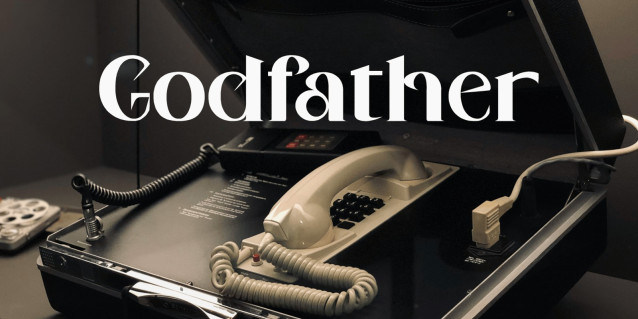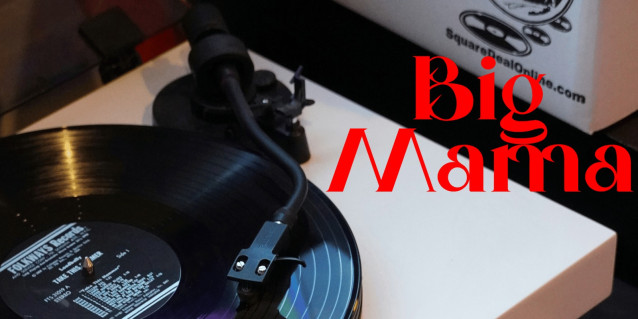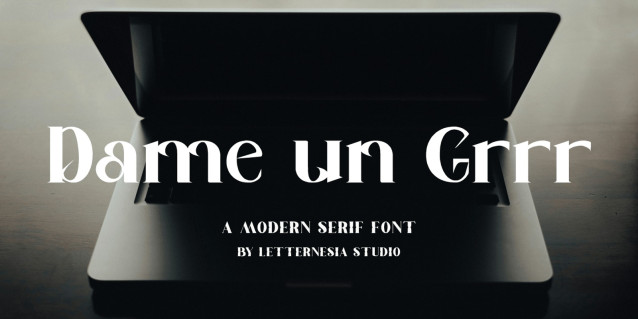
Dame un Grrr Font
Dame un Grrr Font is a bold and untamed display font that bursts with raw energy and fearless attitude. Its sharp edges, expressive strokes, and striking shapes create a sense of power and movement, perfect for designs that demand attention. Inspired by street culture and rebellious spirit, this font brings a wild yet stylish edge to your creative projects. Whether you’re designing music posters, gaming titles, bold branding, or social media graphics, Dame Un Grrr delivers a loud statement that refuses to be ignored. Let your message roar with unstoppable style and confidence.